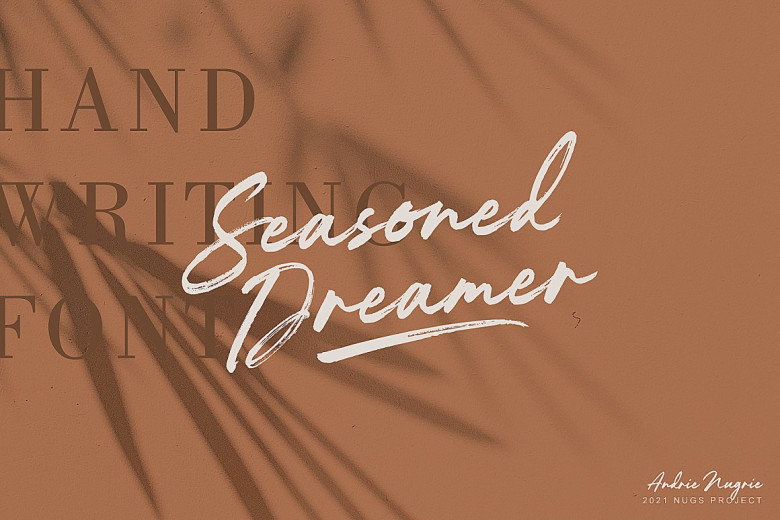
Seasoned Dreamer Font
Thank you for visiting! It is my pleasure to introduce you to the “Seasoned dreamer” where casual meets class and elegant script brushes handwritten by us, best embodying the warm handmade touch on which we prefer to rely for that special something in designs.
Suitable for websites, logos, magazines, banners and social media. The font is well matched ready to be used together.
Seasoned Dreamer Brush Script Font